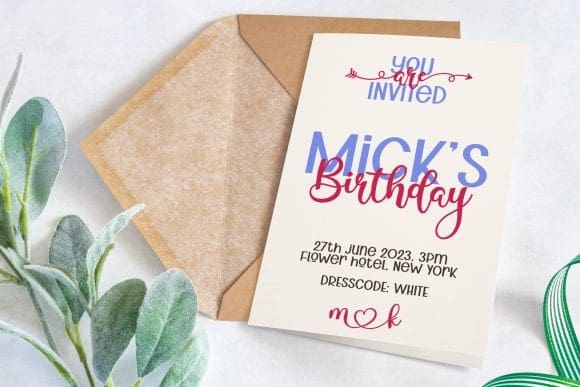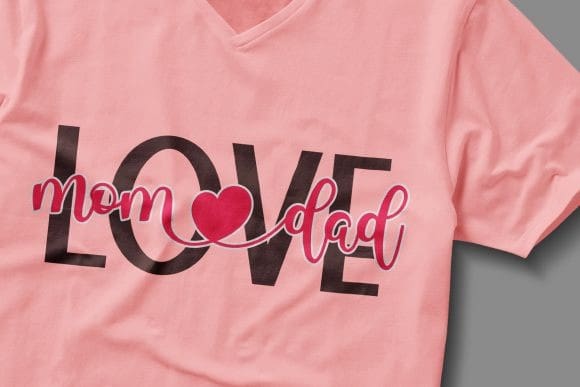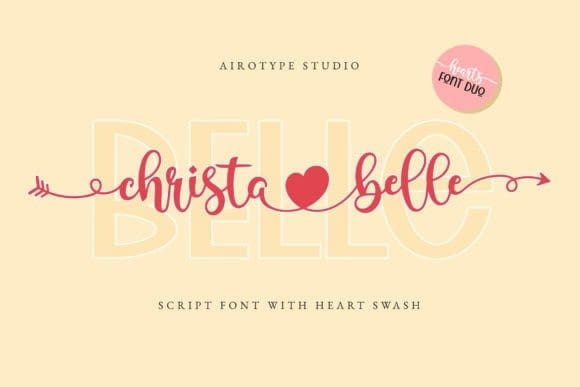
Christabelle Font
Christabelle Font is a delicate and flexible duo font (sans serif and script). Refined and adaptable, this font fits a wide pool of designs, elevating them to the highest levels. Whatever the topic, this font will be a wonderful asset to your font library, as it has the potential to enhance any creation.